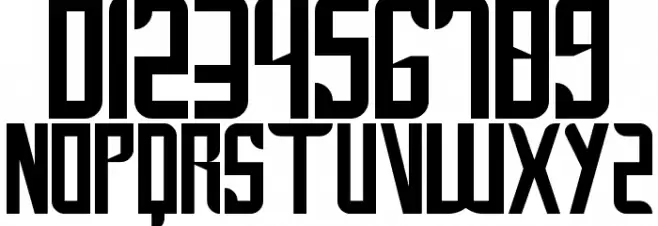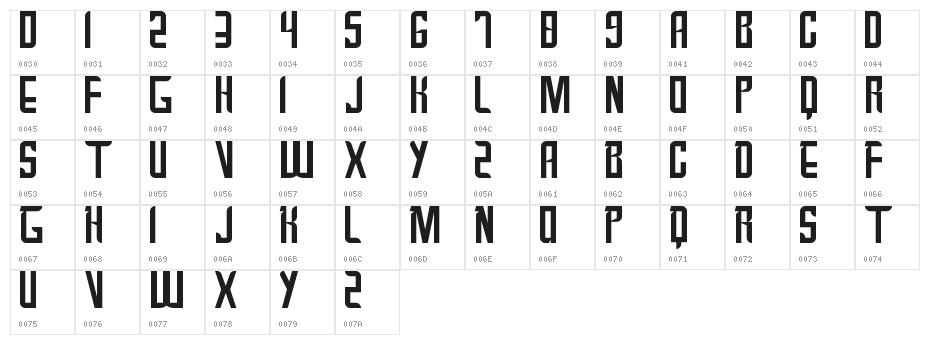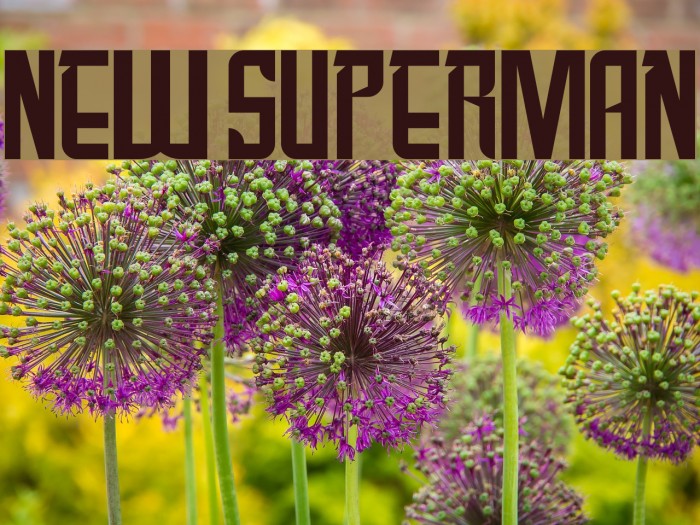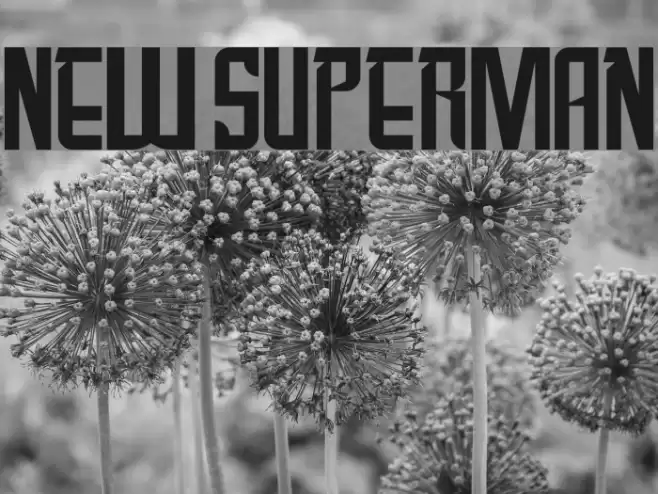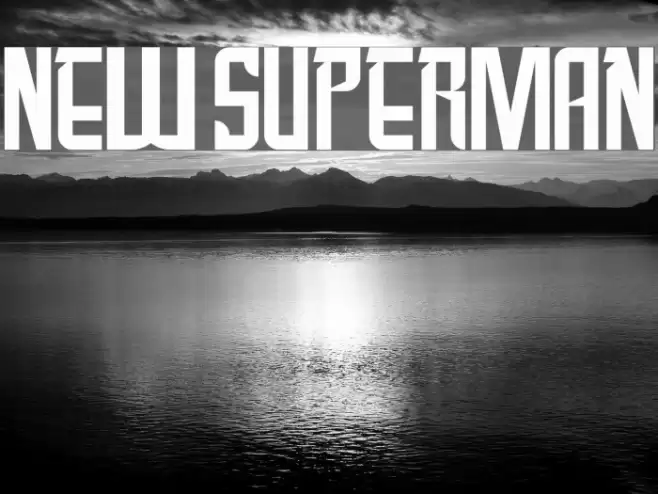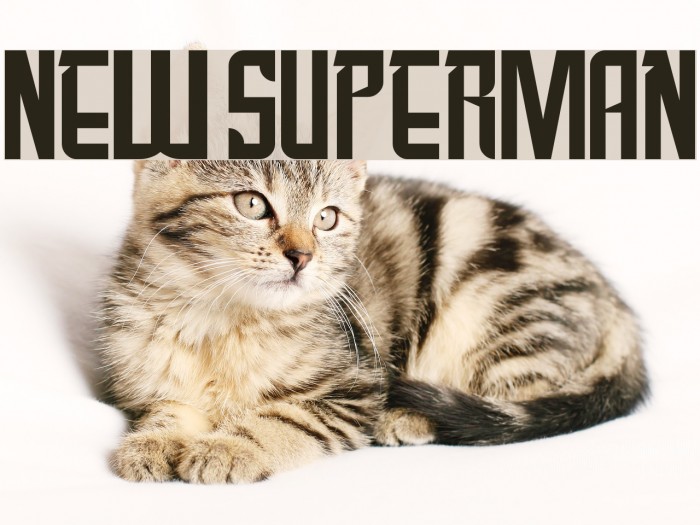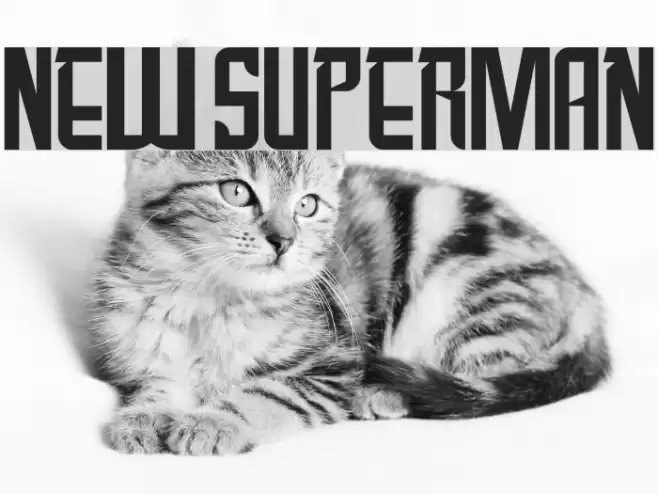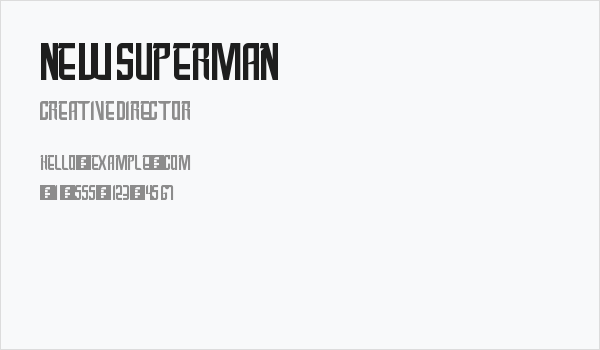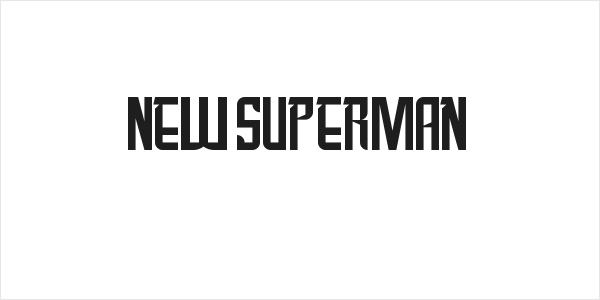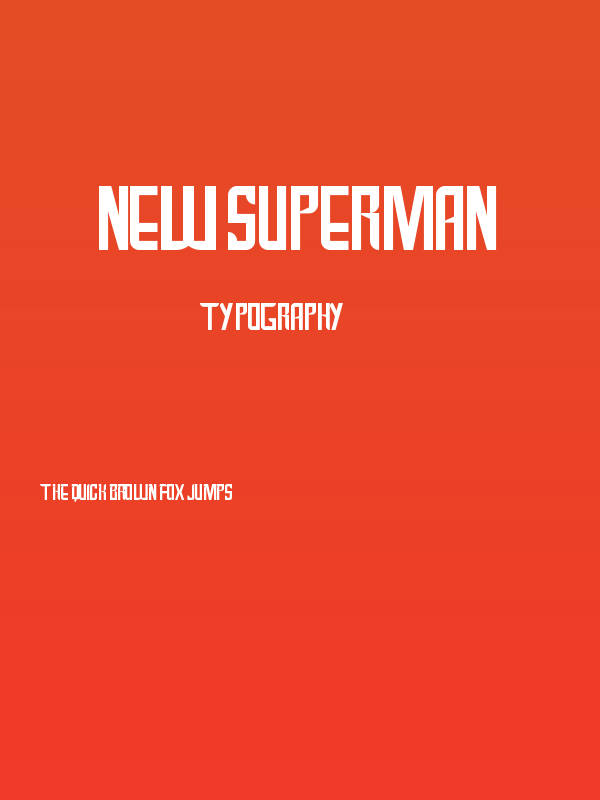
New SuperMan Font
New SuperMan Description
This font features a bold, geometric style with a strong presence. The characters are constructed with thick, uniform strokes that create a sense of solidity and impact. The angular design and sharp edges give it a futuristic and modern appearance. The uppercase letters are particularly striking, with a consistent height and width that contribute to a cohesive look. The numerals follow the same design principles, ensuring uniformity across all characters. This font is ideal for projects that require a bold statement or a modern aesthetic.
| Proposed Projects | Ideal for branding, posters, headlines, and any design that requires a strong visual impact. |